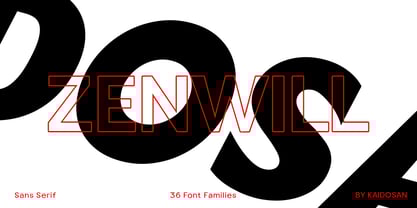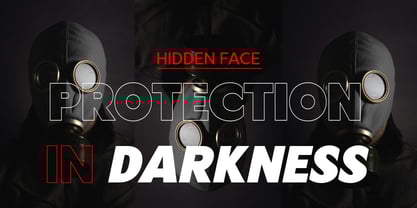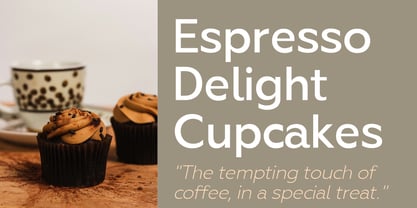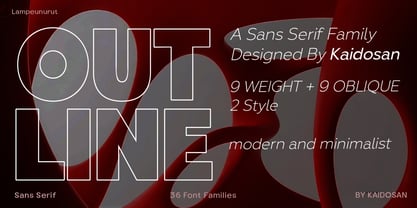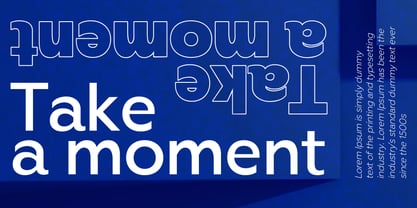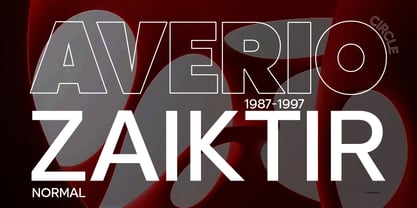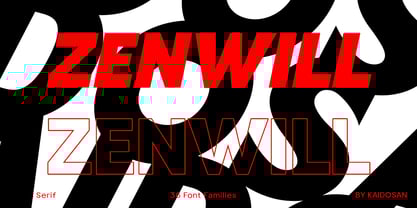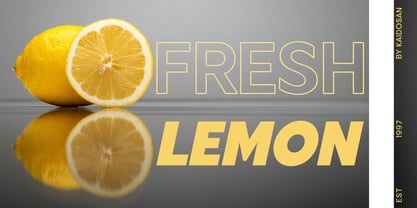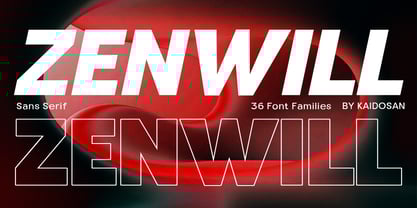
Zenwill
by Kaidosan
The Zenwill Font Family was designed by Muhammad Ansari and published by Kaidosan. Zenwill contains 36 styles and family package options.
"Zenwill: The perfect blend of classic realism and modern styles, tried and tested. Designed from the ground up to create a broad and usable typeface family, ready to elevate your brand's visual appeal. With the addition of the sleek, modern Outline style, Zenwill is the ideal choice for headlines, branding, and bold statement design work that aims for a minimalist and impactful look."